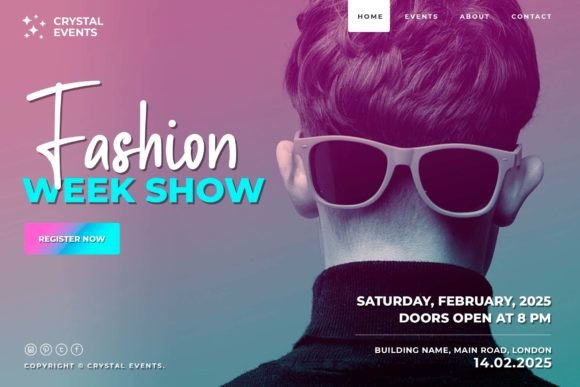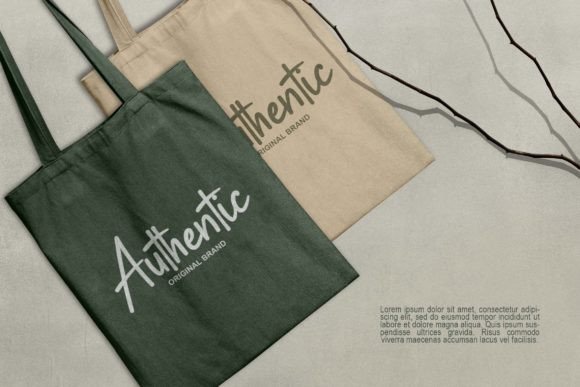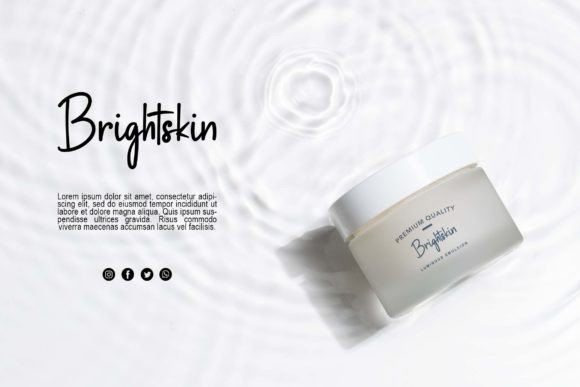
Hightable font is a striking and authentic handwritten font suitable for posters, logos, stickers, jerseys, invitation cards, brochures, and many more.
👤 Author Saber Studio
Hightable Font offers exceptional quality and versatility, making it a valuable addition to your design toolkit. Whether you’re creating for personal projects or commercial use, Hightable Font delivers professional results.